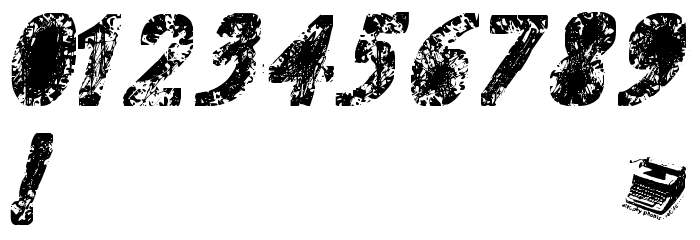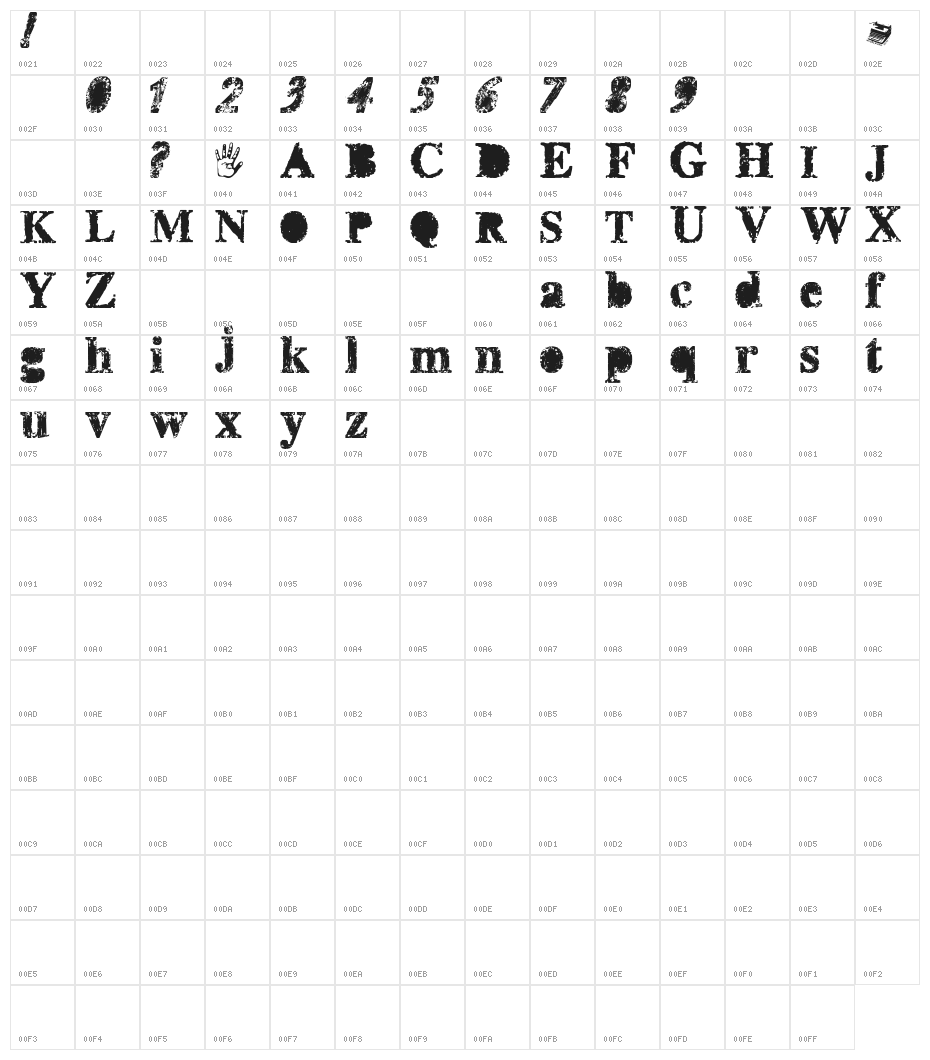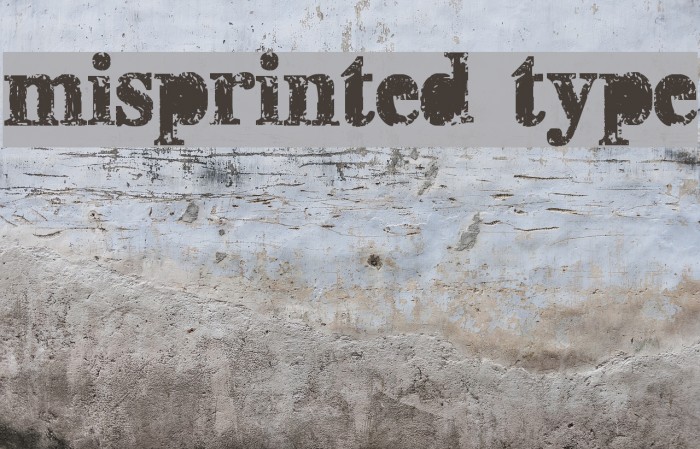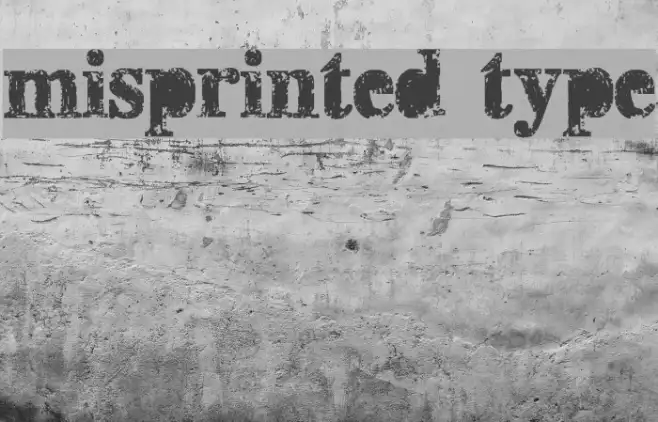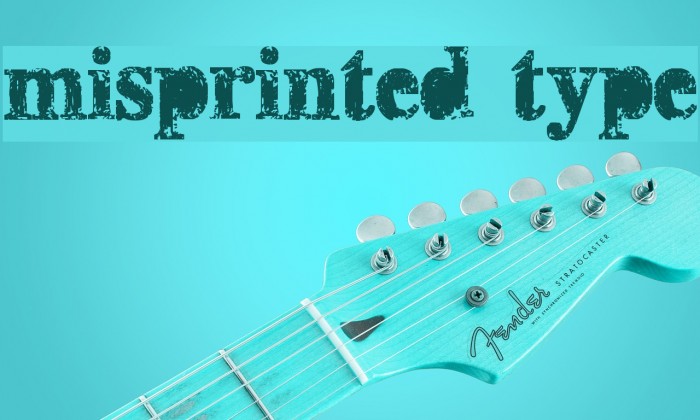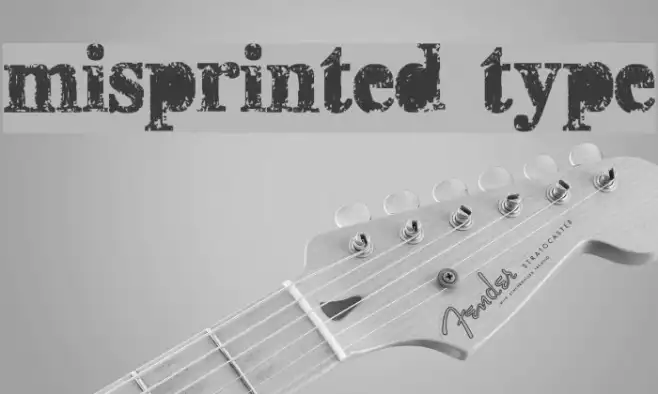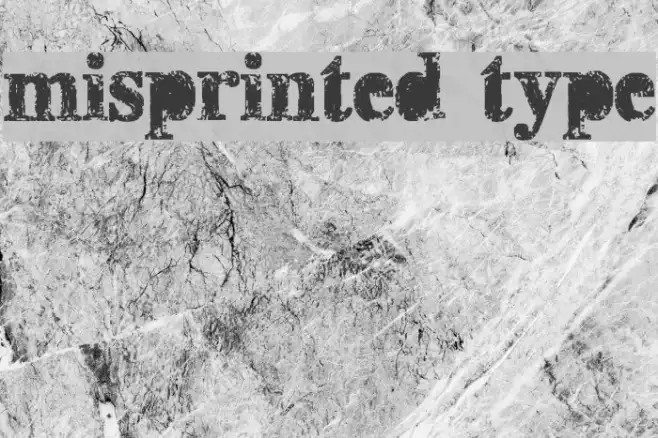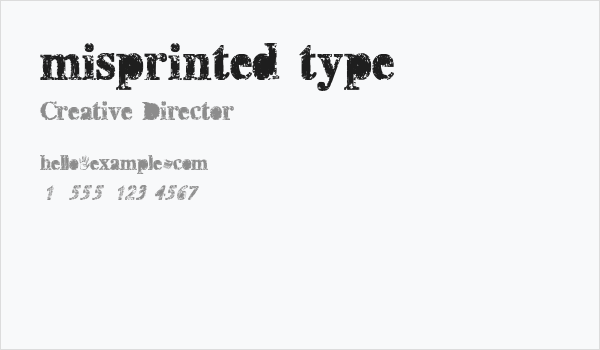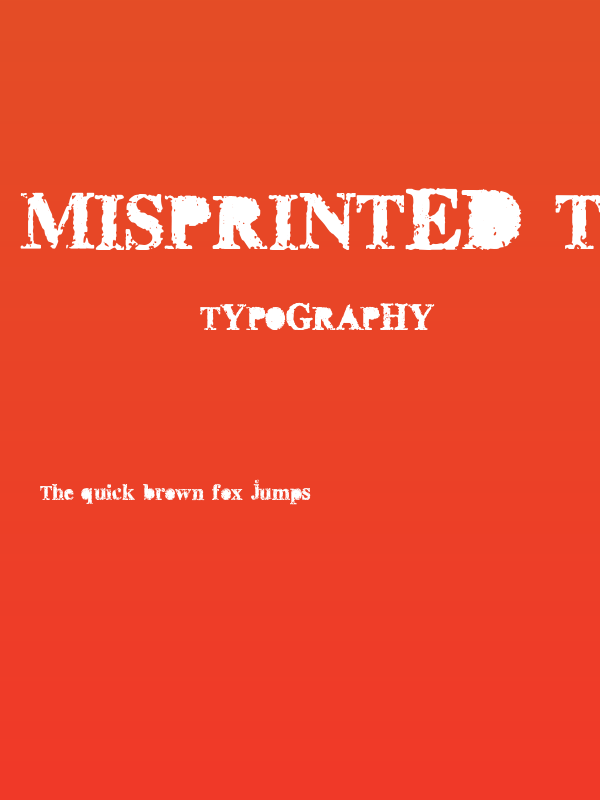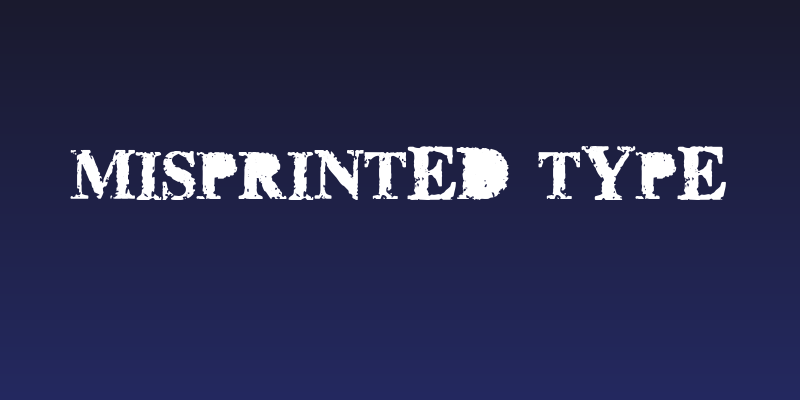
misprinted type Font
misprinted type Description
This font features a distressed, grunge style with a textured, worn appearance that mimics the look of misprinted or aged type. The characters are bold and impactful, with irregular edges and a rough surface that adds a vintage, industrial feel. The uppercase and lowercase letters maintain a consistent style, while the numbers and special characters follow the same distressed aesthetic. This font is ideal for projects that require a rugged, edgy look, such as posters, album covers, or branding for alternative or retro-themed products.
| Proposed Projects | Ideal for posters, album covers, retro-themed branding, and edgy graphic designs. |